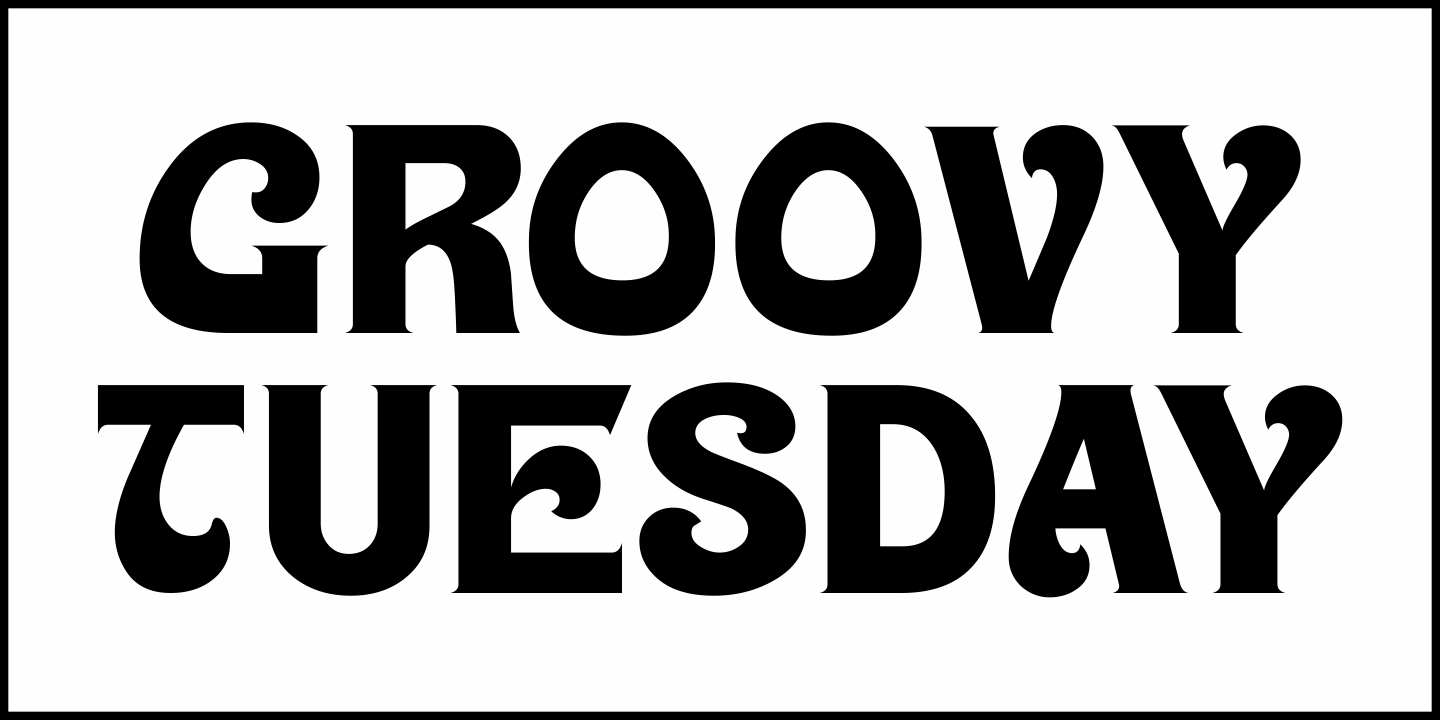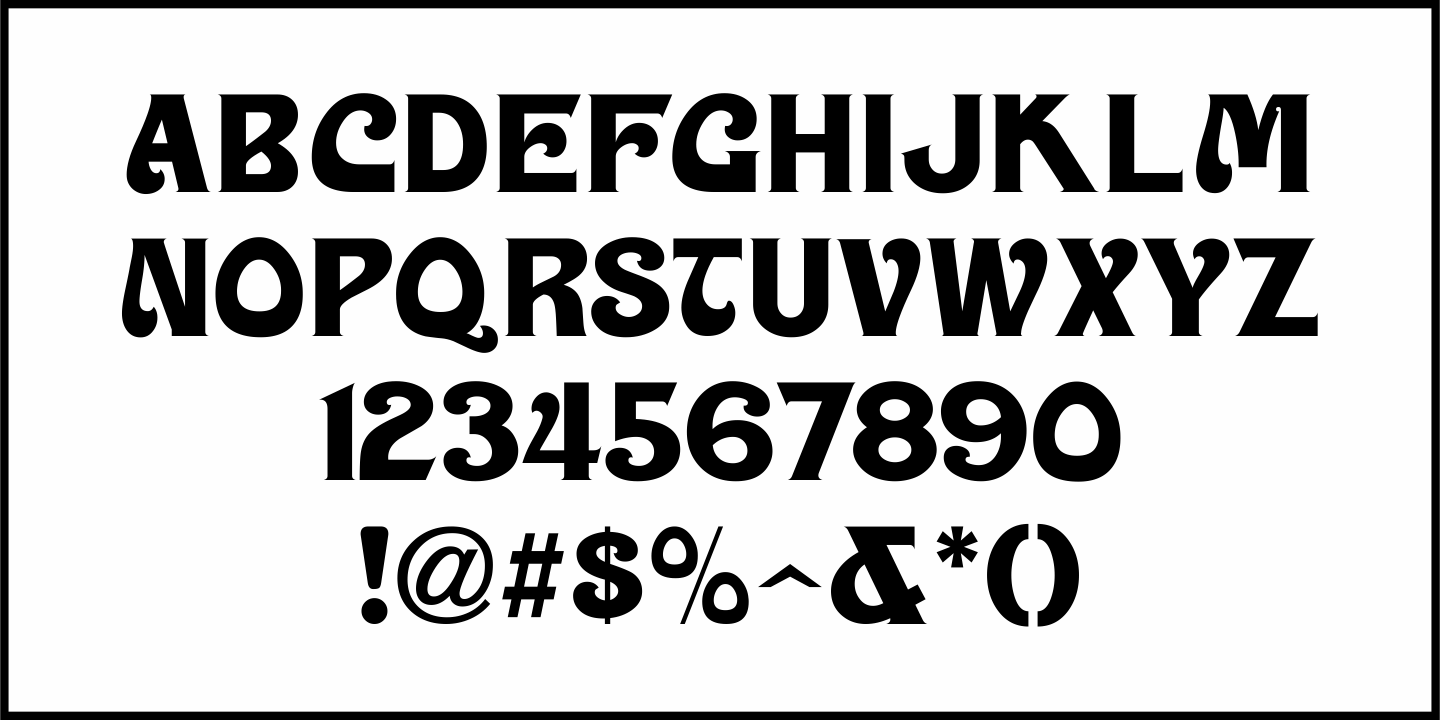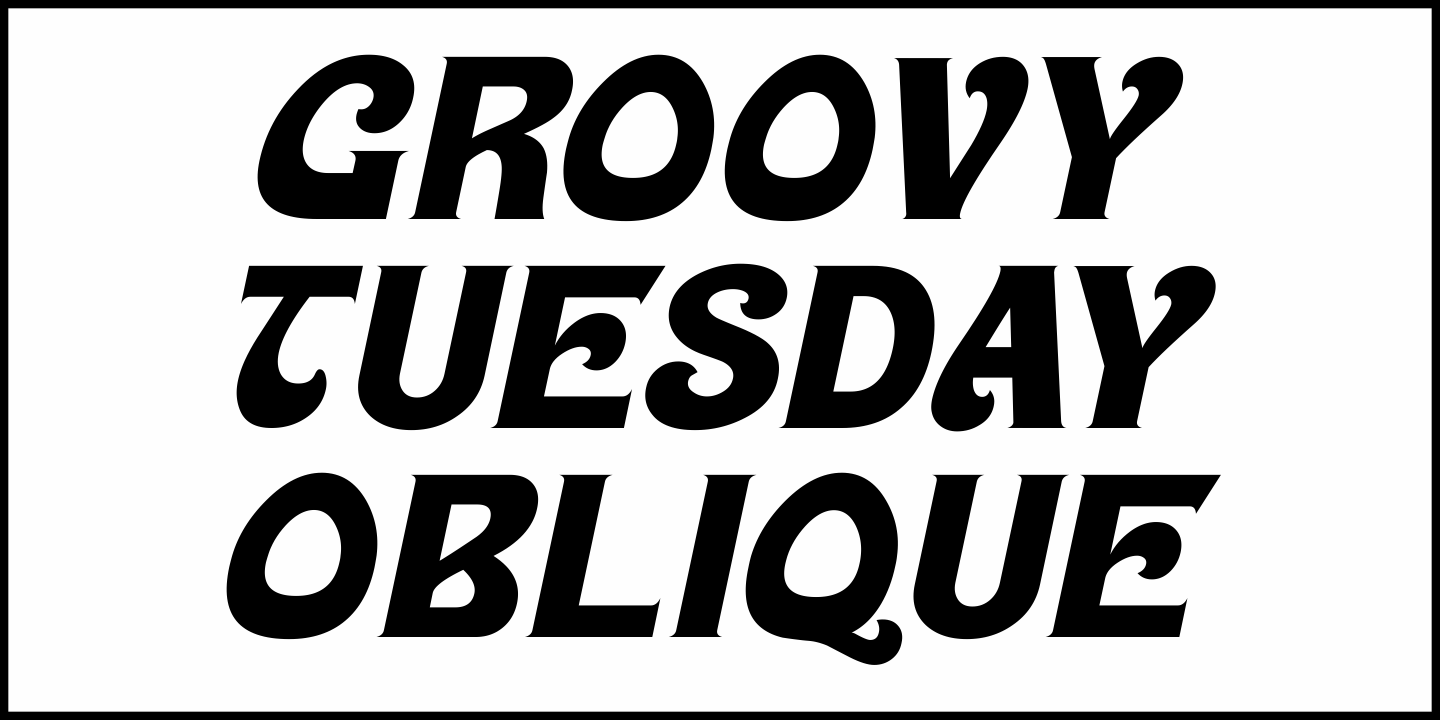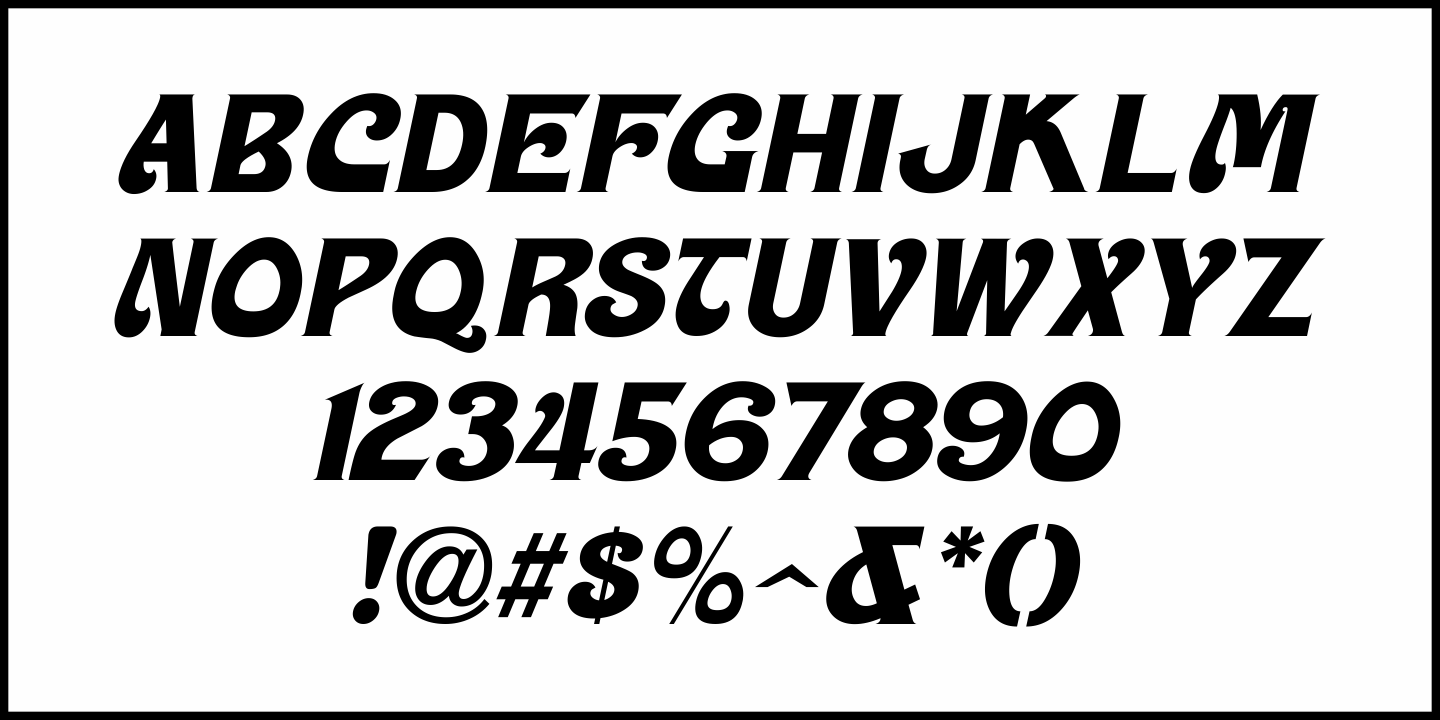
Groovy Tuesday
Hand lettering from the 1965 movie poster for 'The Loved One” – a classic 1960s spurred serif design with added curly-tailed terminals was the working model for Groovy Tuesday JNL – available in both regular and oblique versions.
Groovy Tuesday JNL Regular by Jeff Levine Fonts